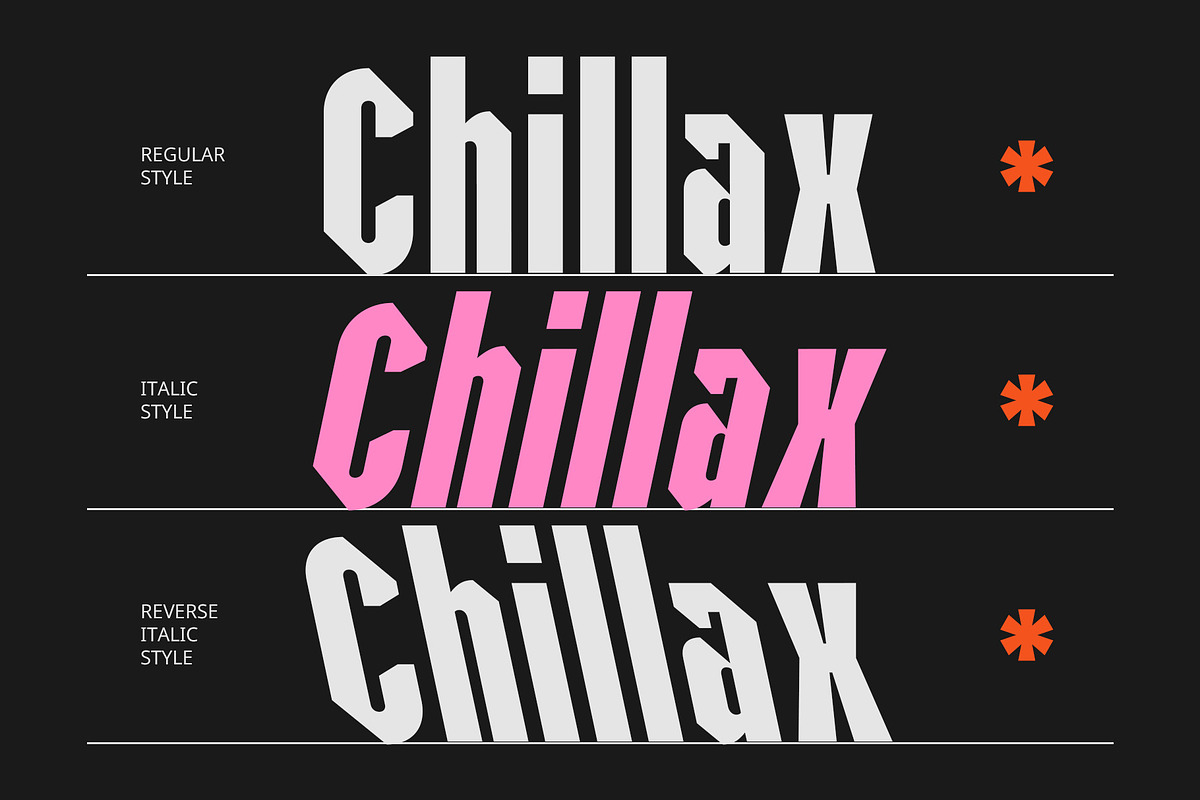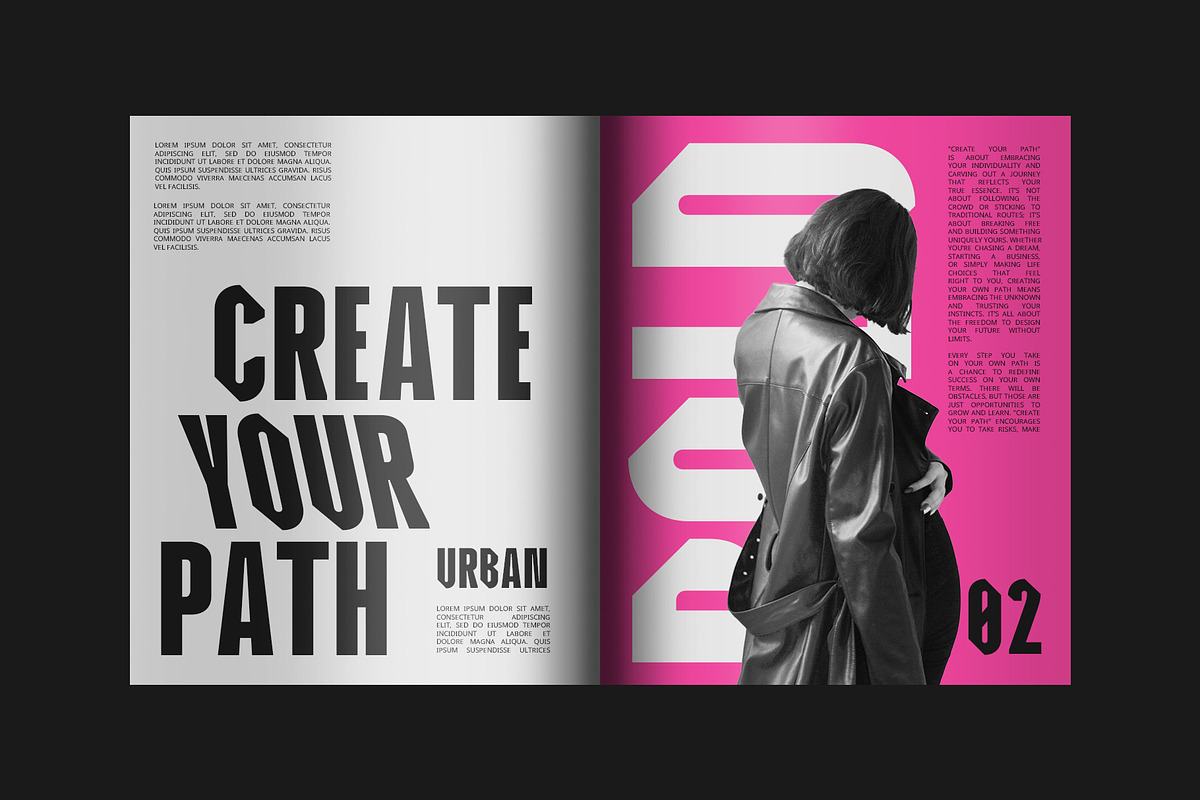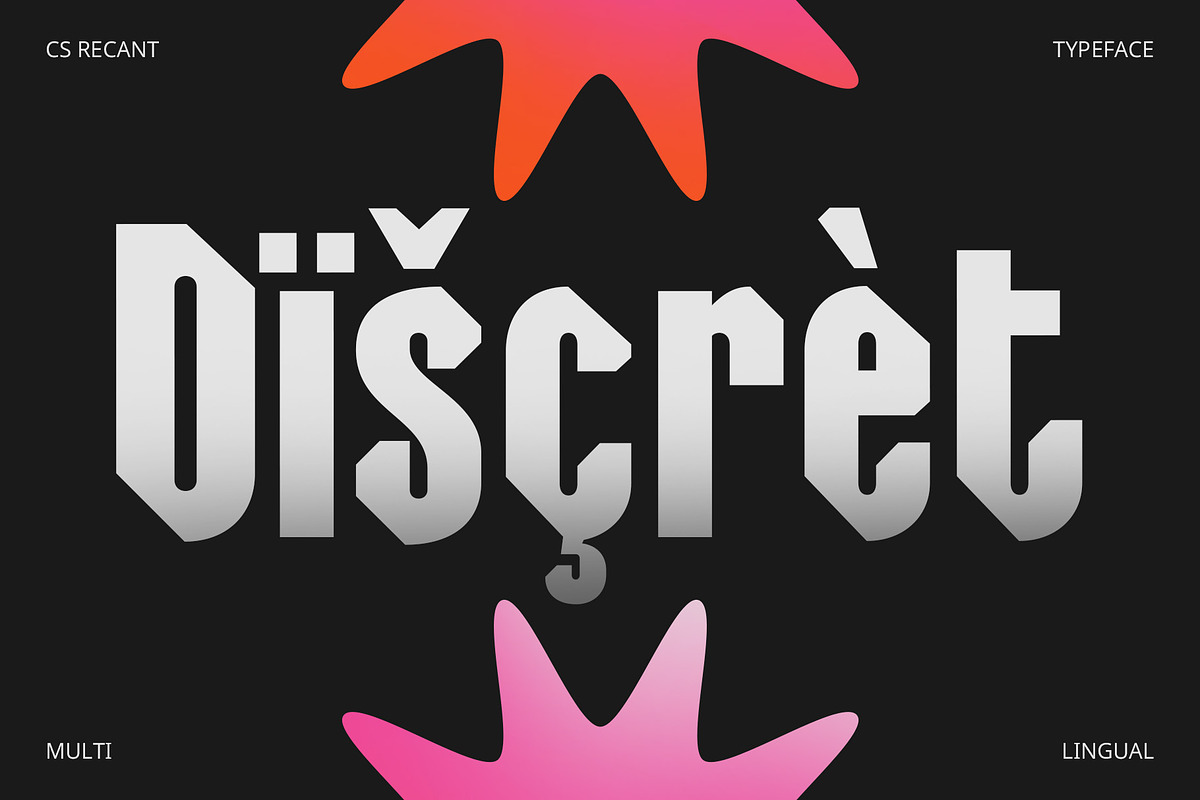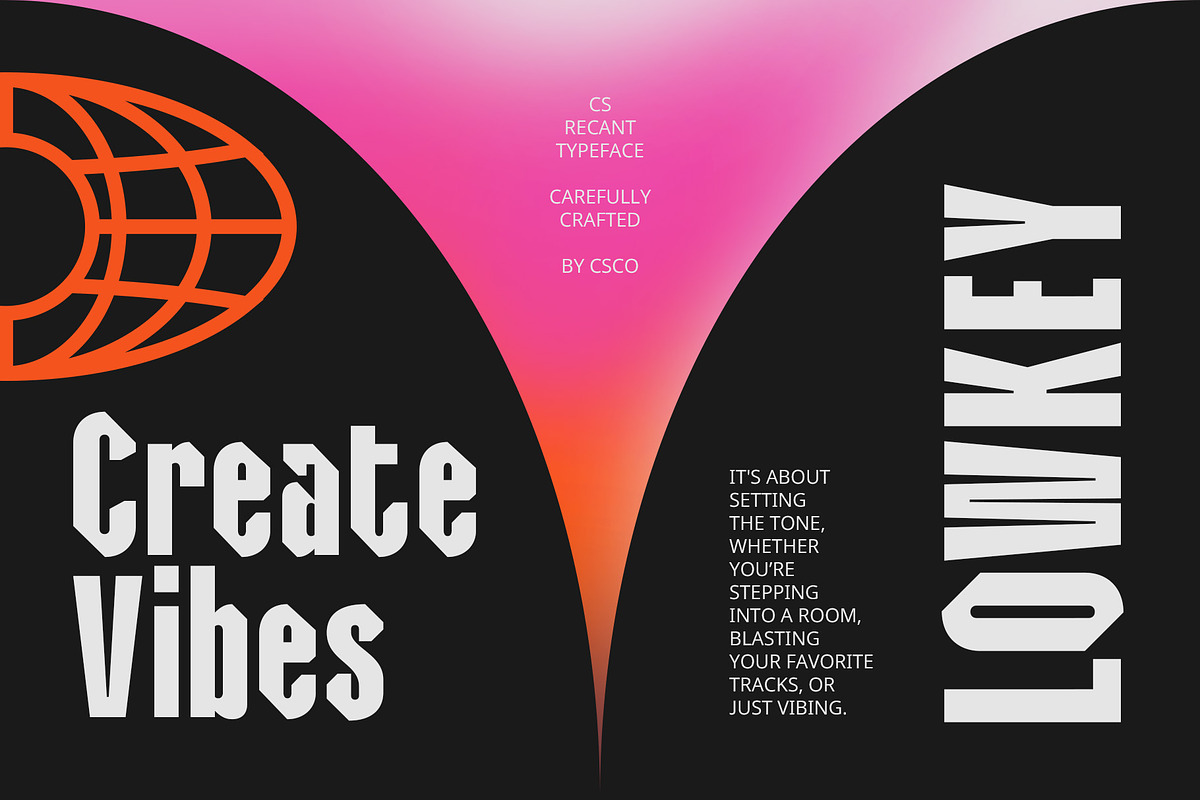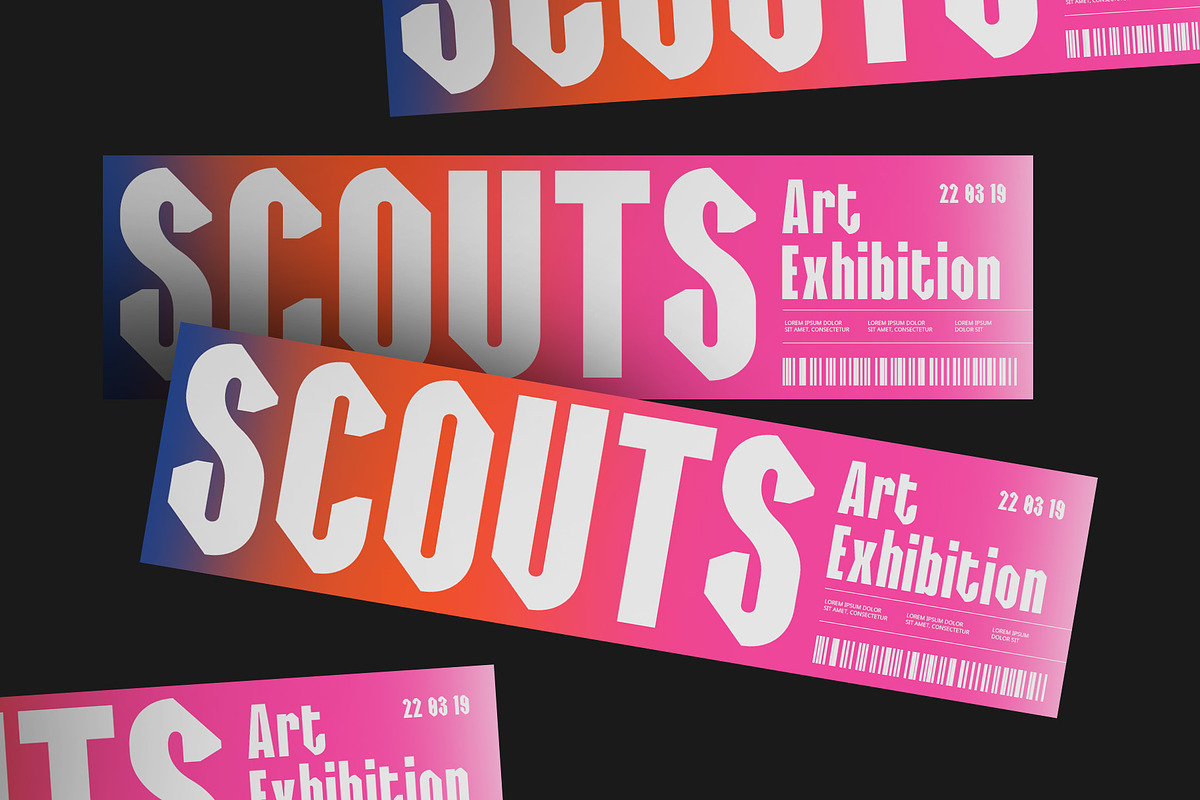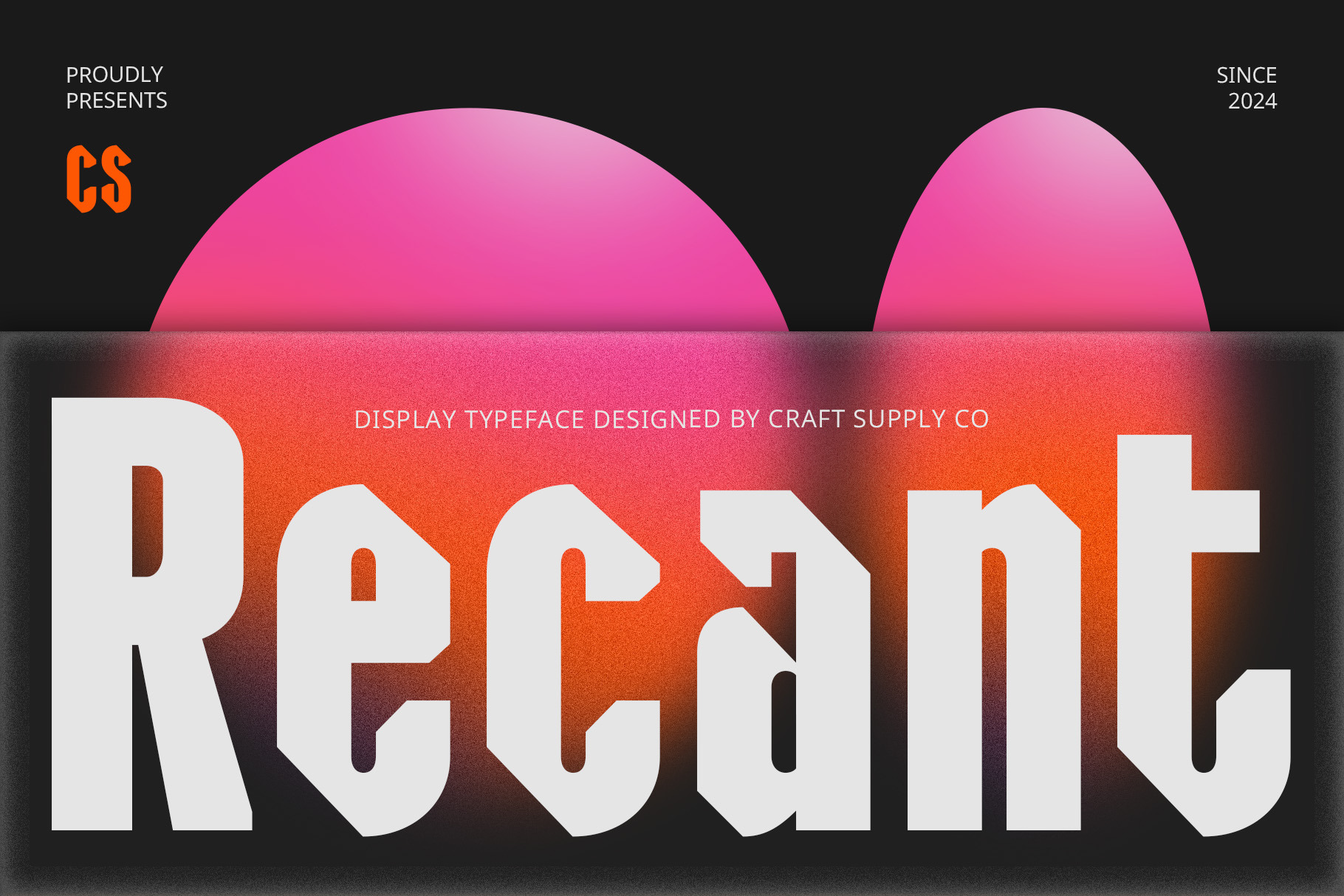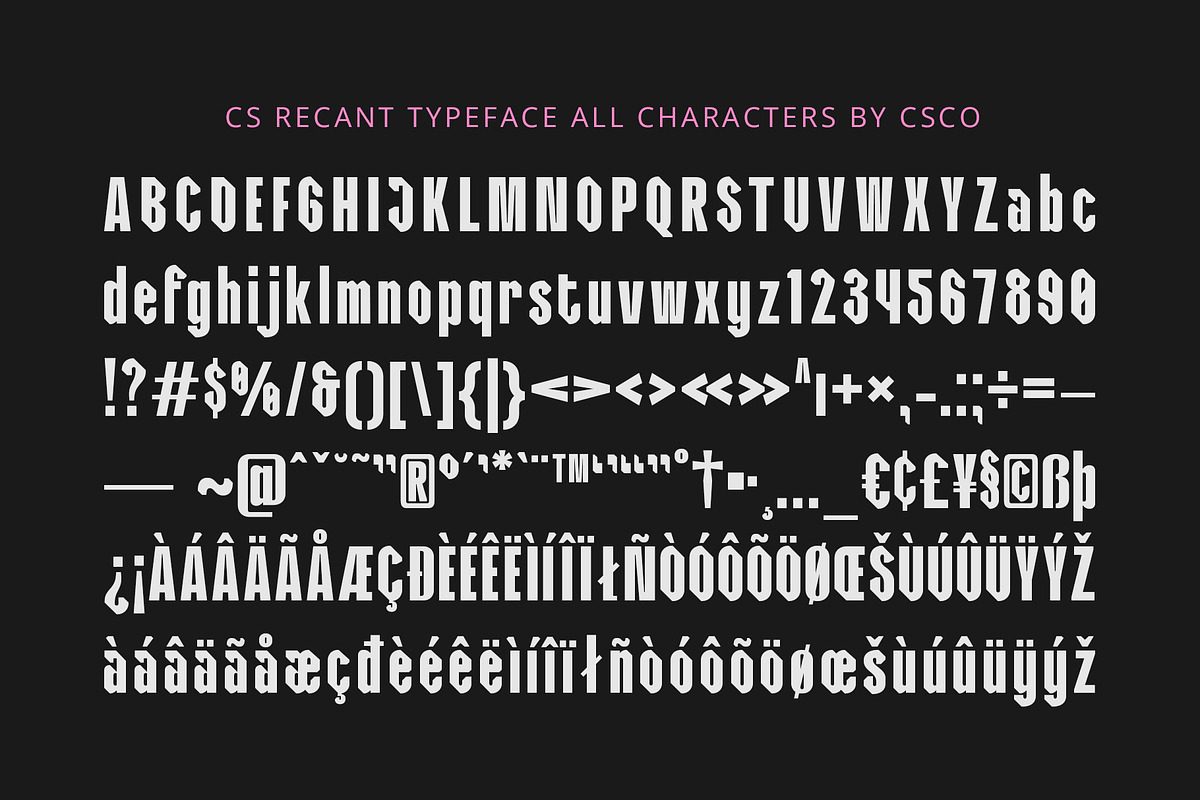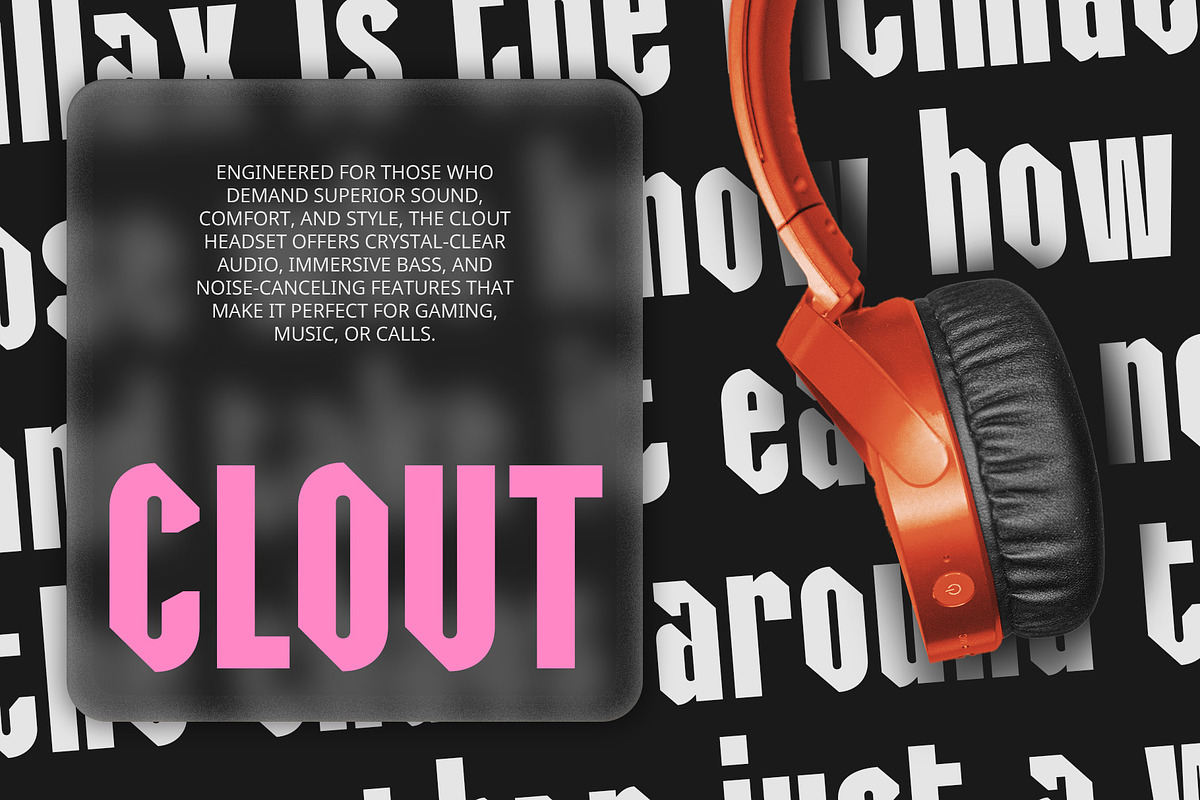
CS Recant – Bold Font
CS Recant – Bold Modern Sans-Serif Font
Powerful, Bold Design with Modern Appeal CS Recant is a bold, modern sans-serif display font that exudes strength and confidence. With its thick, strong letterforms, this font makes a powerful statement, perfect for headlines, posters, and branding that require attention-grabbing text. The clean, straightforward design ensures excellent readability while maintaining a contemporary, striking appearance.
Attention-Grabbing and Confident The bold strokes of CS Recant are designed to stand out and capture the viewer’s attention, making it ideal for projects where impact is essential. Its simplicity and clarity lend themselves to impactful designs, allowing your message to take center stage. Whether for large-scale posters, marketing materials, or digital designs, CS Recant offers a strong, confident look that is impossible to overlook.
Versatile for Various Projects From branding and advertising to editorial layouts and event posters, CS Recant is a versatile choice for any project requiring bold and modern typography. The thick letterforms give it a commanding presence, while the clean sans-serif structure keeps it sleek and contemporary. Its bold nature allows it to shine in both digital and print formats, ensuring your designs maintain their visual strength across all platforms.
- CS Recant Regular
- CS Recant Italic
- CS Recant Reverse Italic